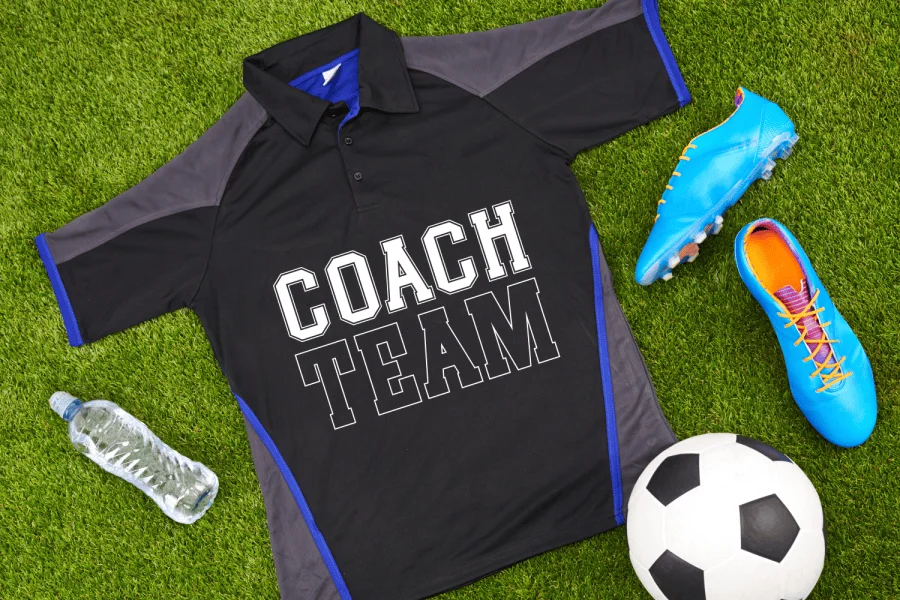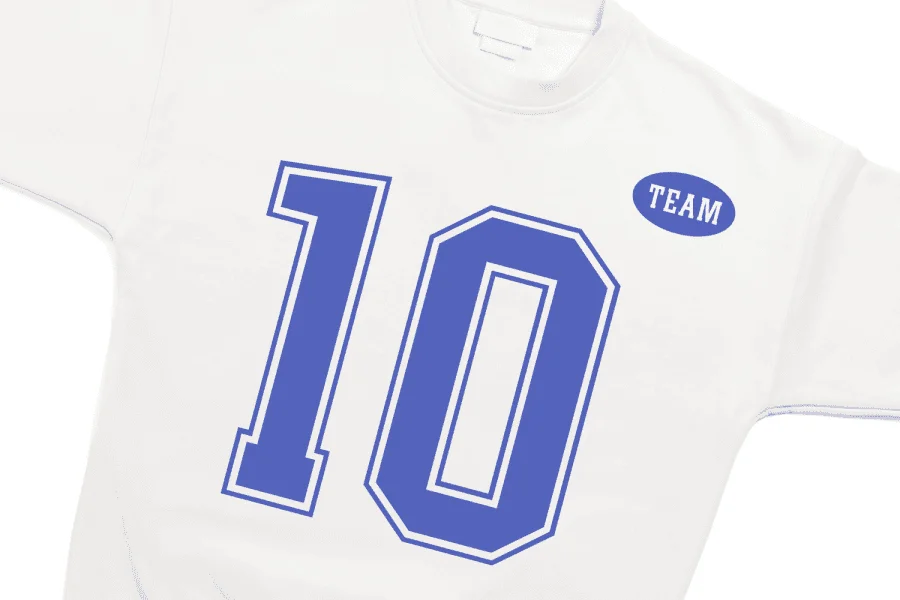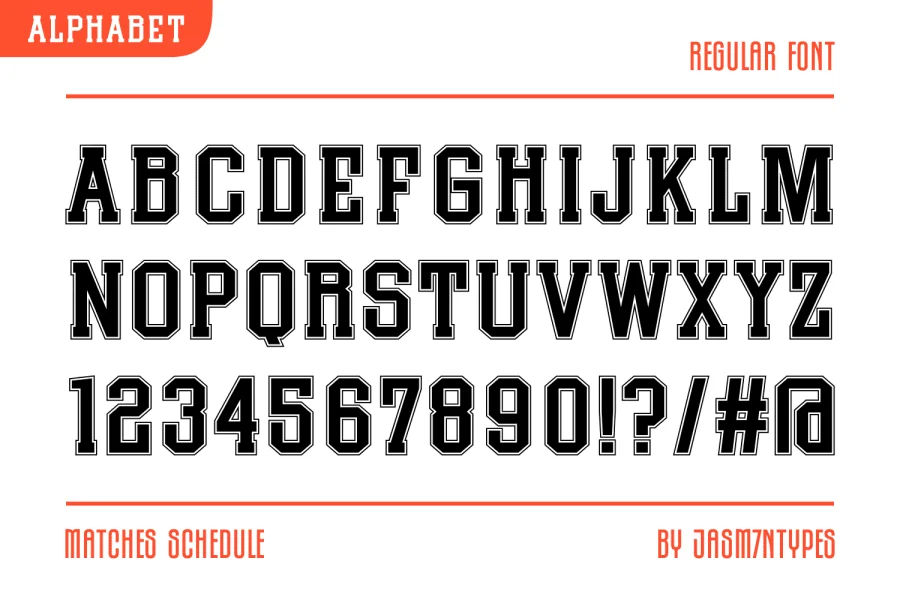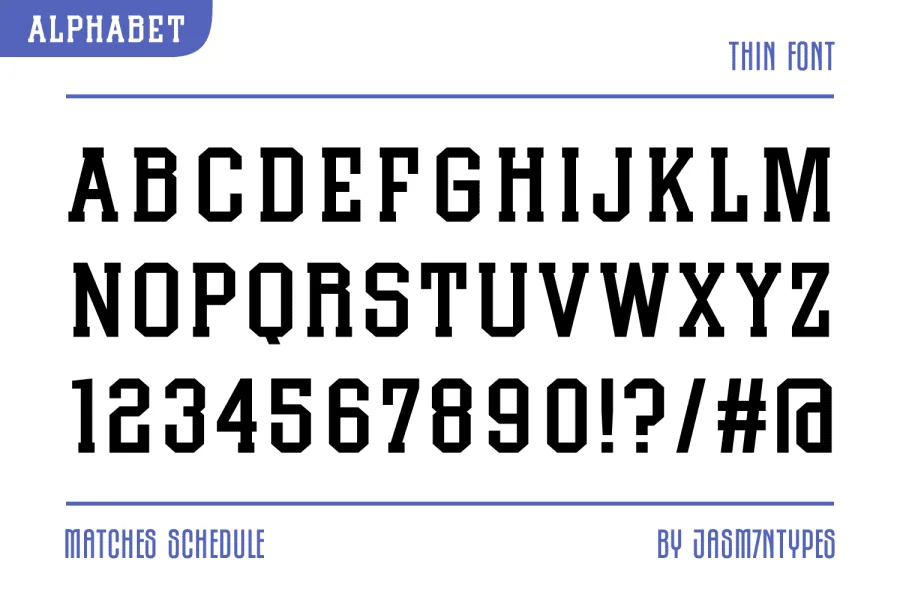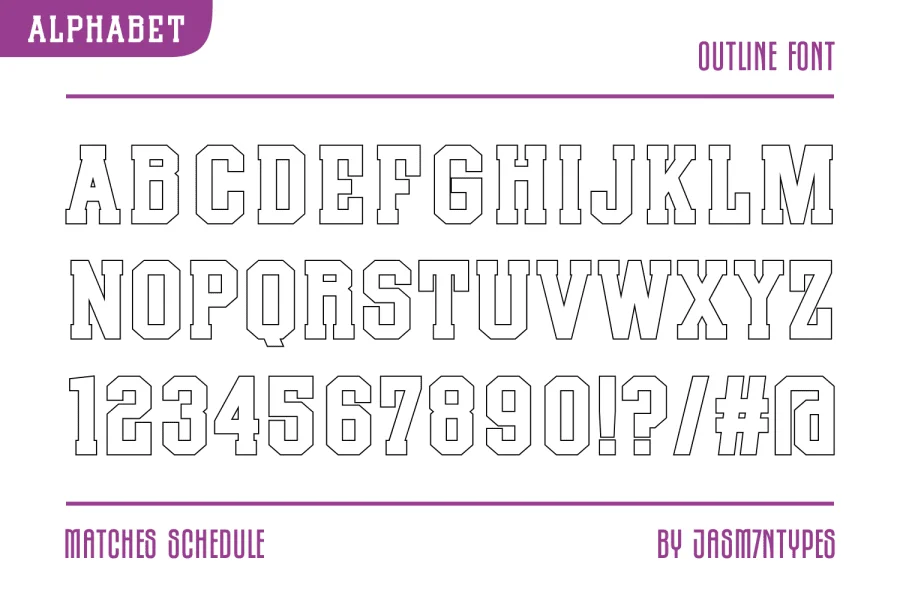
Matches Schedule is a cool, modern font perfect for sports and college-themed designs. With its bold slab serif style, it’s easy to read and adds a touch of athletic flair to any project. Whether you’re creating schedules, posters, or team logos, Matches Schedule brings a dynamic energy that stands out.